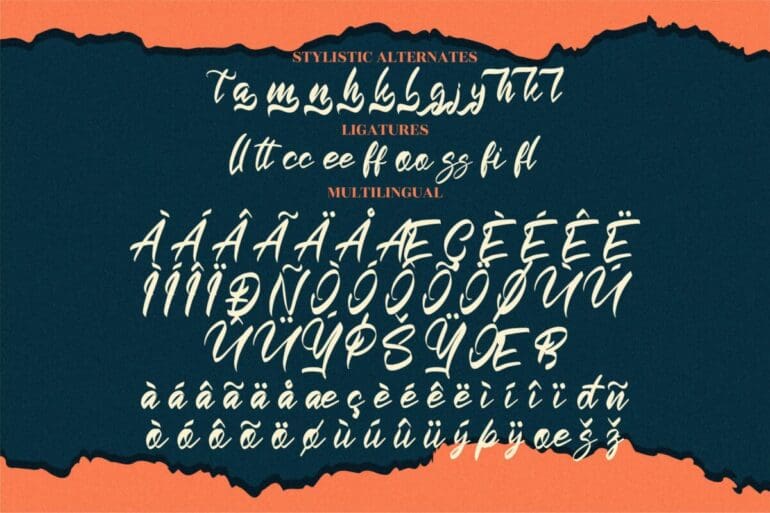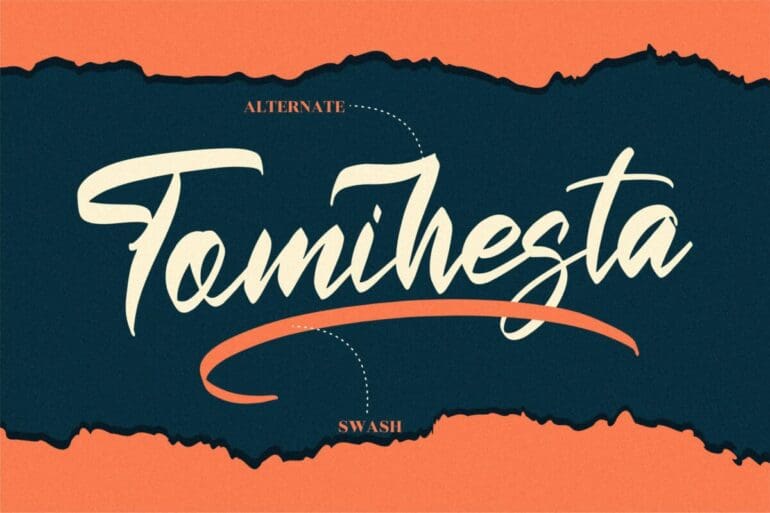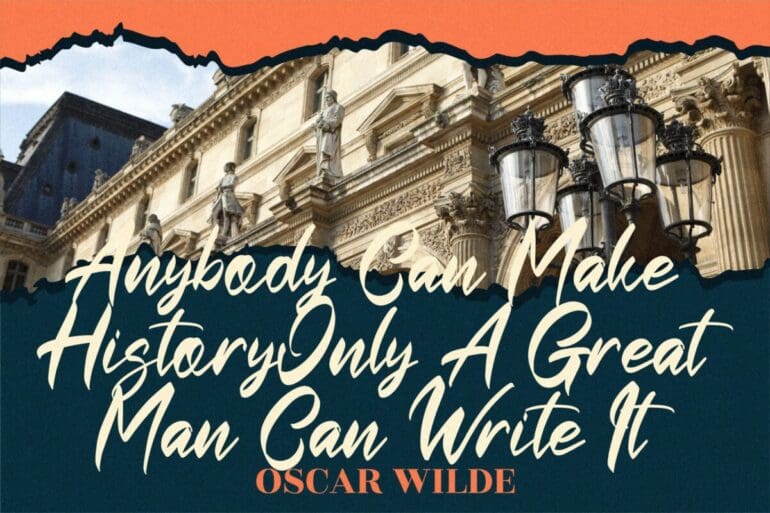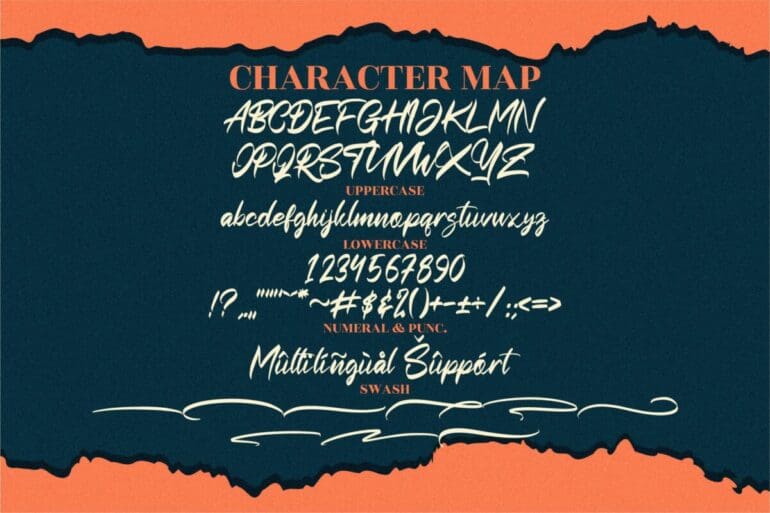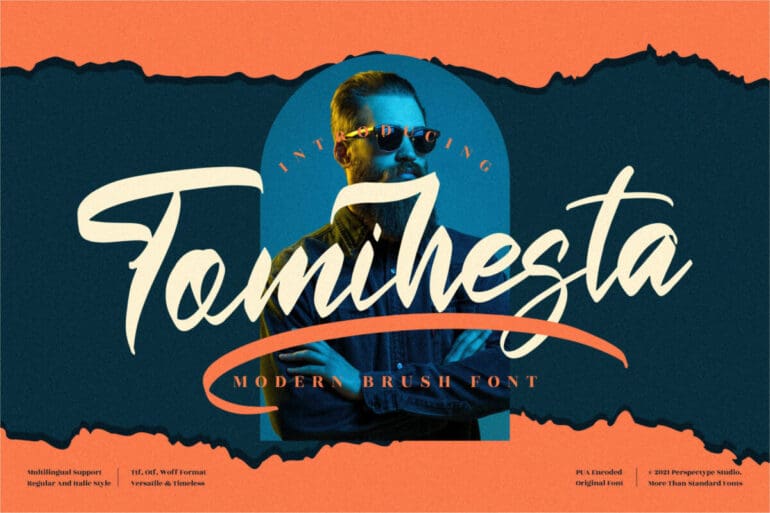
Tomihesta Brush Font
Tomihesta is a modern and bold Brush Font. This font is neatly crafted and highly detailed. This font will be a wonderful asset to your font library, as it has the potential to enhance any creation.